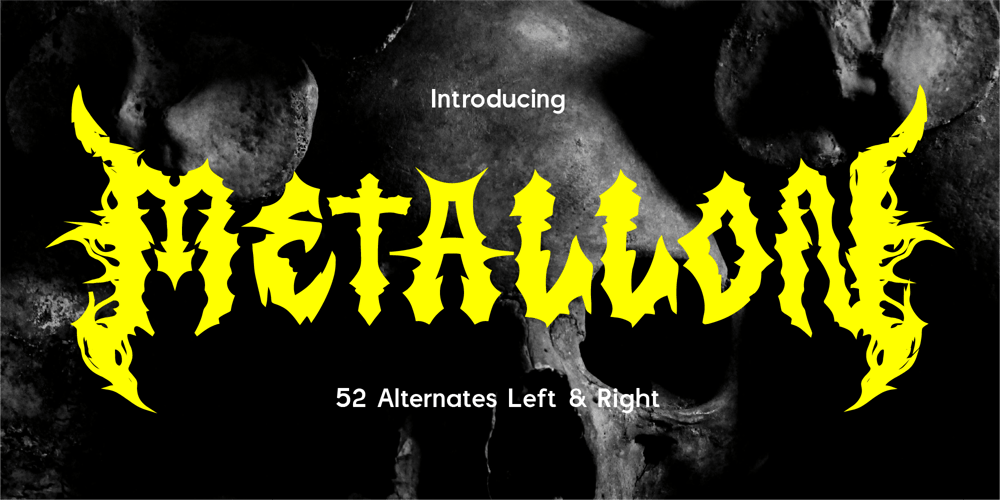
CF Metallon Font Family was designed by Gilang Mei Nugraha, Frederik Aristaputra and published by Creatifont Studio. CF Metallon contains 2 styles and family package options. Metallon – The Ultimate Heavy Metal Font with 52 Brutal AlternatesUnleash the power of metal with Metallon, a savage and electrifying typeface built for extreme impact. Inspired by heavy metal aesthetics, this font is packed with razor-sharp edges, chaotic energy, and fierce details, making it the perfect choice for band logos, album covers, horror themes, festival posters, and underground branding.With 52 alternates for left and right characters, Metallon lets you customize your typography for the ultimate brutal and aggressive look. Whether you’re crafting death metal artwork, dark fantasy branding, or horror movie titles, this font delivers maximum intensity and dominance.Why Choose Metallon?🔥 Raw & Aggressive: Perfect for heavy metal, hardcore, and gothic designs.⚡ 52 Alternates: Mix and match for a unique, chaotic look.🖤 Dark & Fearless: Ideal for album covers, horror themes, and extreme branding.🎸 Bold Statement: A typeface that screams power, destruction, and rebellion.Crank up the volume and ignite your designs with Metallon. Get it now and make your visuals louder, darker, and more intense than ever! 🤘🔥A SUMMARY OF WHAT’S INCLUDED:- Standard Character A-Z, a-z, 0-9, Punctuation & symbols- Regular and Bold- Works on PC & Mac- Simple installation- Accessible in Adobe Creative Suite (Ai, Ps, Id, etc.) even work on Microsoft Word.- PUA Encoded Characters – Fully accessible without additional design software.🌟If you come across any issues or notice anything we might have overlooked while using this product, please feel free to reach out to us. We greatly value your feedback as it helps us enhance and refine our products. Thank you!